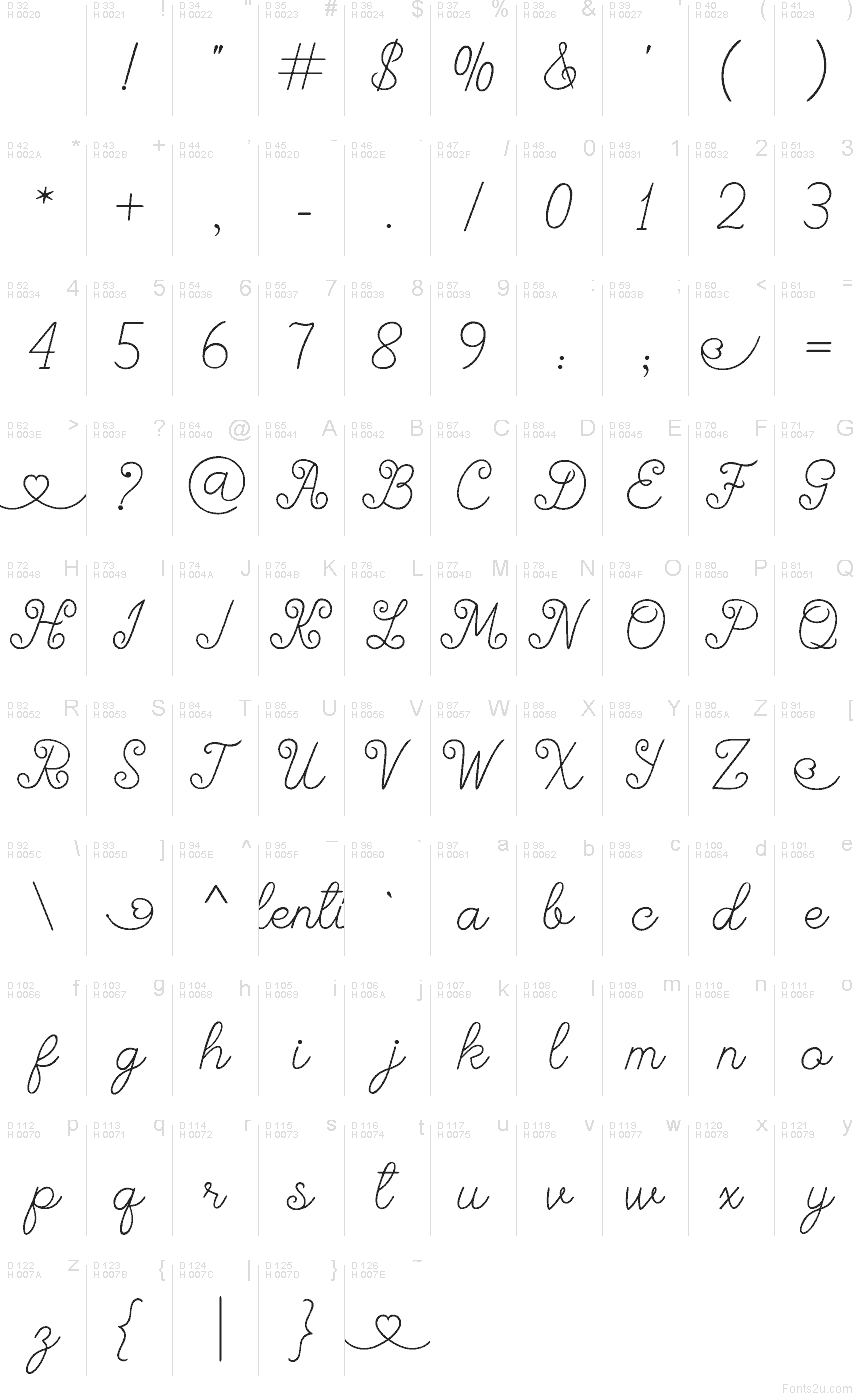
San Valentín's Day
San Valentín's Day font by Jaime Rangel Castro is a free handwritten script typeface with airy curls and looping strokes that feel like ink from a careful, romantic note. Its letters are slim and lightly textured, giving words a delicate, almost whispered quality, while the gentle slant and swirling terminals add just enough drama without feeling overdone or cheesy. The rhythm is fluid but controlled, so even longer phrases stay readable and graceful.
Using San Valentín's Day, you can bring warmth and charm to Valentine cards, wedding invitations, love letters, gift tags, quote graphics, boutique branding, and packaging for chocolates or florals. This free font shines when set a bit larger, letting the loops breathe, and pairs beautifully with a simple sans serif for small supporting text.